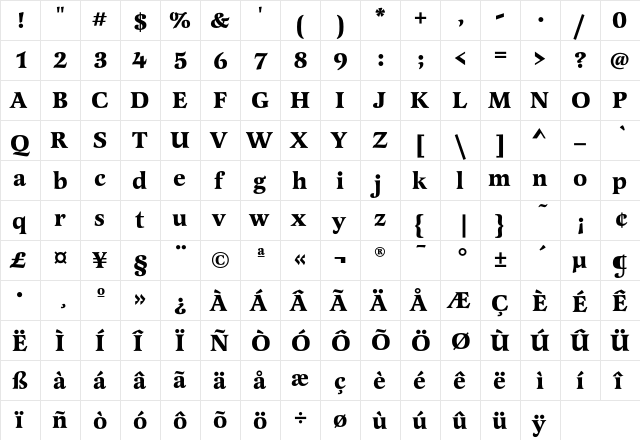
LatienneEF-Bold Regular
Design Context for LatienneEF-Bold Typeface
LatienneEF-Bold takes a measured approach to typography — its balanced proportions and neutral character make it a reliable workhorse for both digital and print work. Its bold stroke weight gives it real presence on the page.